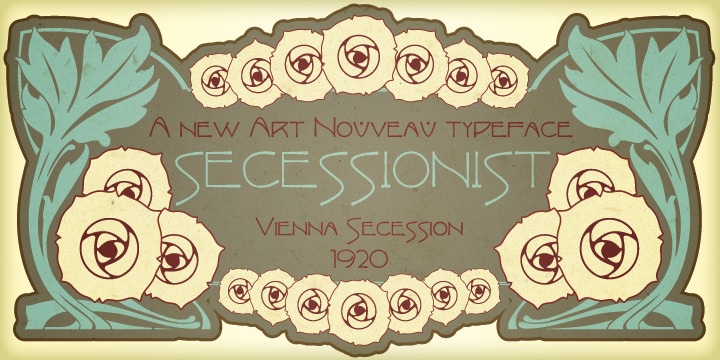
FM Secessionist Font
FM Secessionist Font is perfect for artistic branding, art nouveau-inspired designs, vintage luxury brands, cultural institutions, historical museums, architectural firms, fine art galleries, classical concert programs, prestigious wine labels, antique bookshops, heritage hotels, and sophisticated editorial publications.
What makes FM Secessionist Font exciting is its artistic rebellion that captures the revolutionary spirit of the Vienna Secession movement through elegant letterforms that embody the perfect fusion of classical tradition and modernist innovation. This distinguished typeface represents the essence of artistic independence and cultural reform, combining decorative sophistication with progressive design principles that resonate with audiences seeking authentic artistic heritage and intellectual sophistication. The font's revolutionary character and artistic refinement create immediate cultural credibility while maintaining the readability essential for contemporary applications that honor historical artistic movements. Its sophisticated personality makes it perfect for brands that want to communicate artistic vision, cultural depth, and the transformative power of creative rebellion and aesthetic innovation.
The FM Secessionist Font family includes regular and bold weights, featuring art nouveau alternates, decorative ligatures, and secessionist design elements. The character set incorporates artistic symbols, cultural numerals, and refined punctuation marks that enhance the font's sophisticated character and provide designers with comprehensive artistic typography solutions for culturally rich brand expressions.
Whether you're developing cultural brand identities, creating artistic marketing materials, or designing sophisticated communications, FM Secessionist Font Free Download delivers the artistic authority your culturally refined projects require. This premium typeface excels in applications where cultural credibility and artistic sophistication are crucial for brand positioning and audience respect in luxury and cultural markets. The font's artistic qualities work magnificently across museum materials, cultural publications, and digital heritage platforms, making it an invaluable asset for designers serving arts and cultural industries. Cultural institutions and artistic brands choose this font for its ability to communicate sophisticated rebellion while maintaining perfect readability and historical authenticity that honors the secessionist artistic movement. The comprehensive character support includes artistic symbols and cultural glyphs, expanding its versatility for global cultural applications and multilingual artistic communications. Professional designers appreciate its perfect balance of artistic rebellion and functional elegance, ensuring projects remain both culturally meaningful and practically effective for sophisticated audiences. When you implement this exceptional typeface in your cultural communications, you're selecting a typography solution that celebrates artistic independence and cultural sophistication, ensuring your brand connects with culturally aware audiences while maintaining the artistic credibility essential for success in competitive cultural markets and artistic industries that honor creative heritage, promote artistic innovation, and celebrate the enduring impact of revolutionary artistic movements that challenged conventional aesthetics and established new standards of beauty and cultural expression.